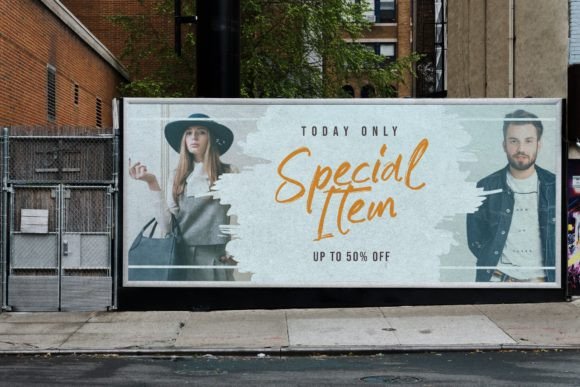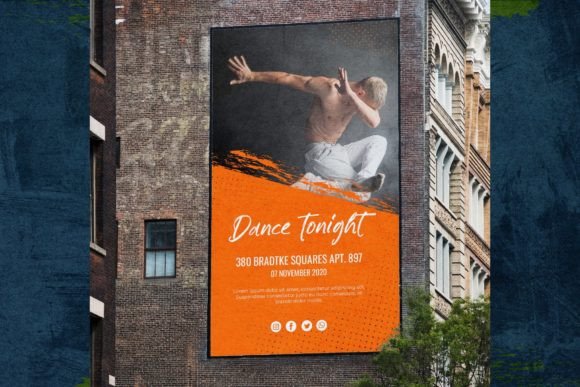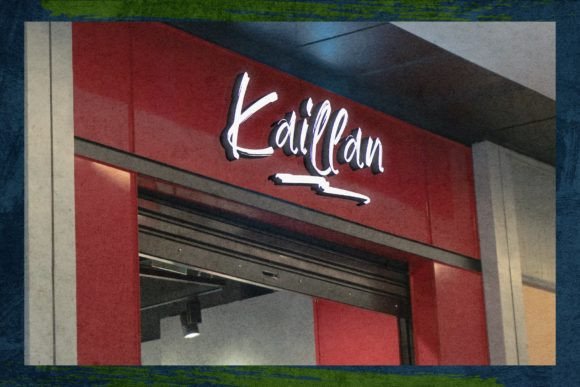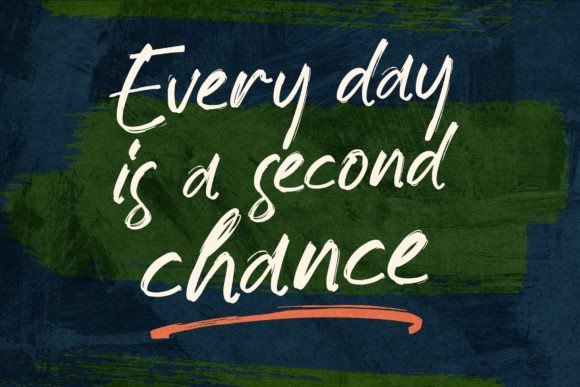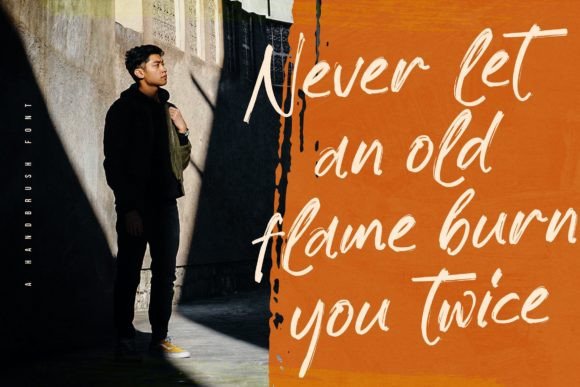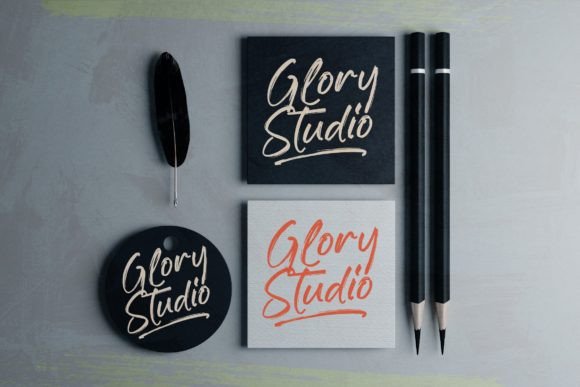
Introduction to Hickey Font
Have you ever been brainstorming ideas for a creative project, and suddenly a spark of inspiration hits you? The words flow effortlessly, and you’re left with a beautiful concept that you can’t wait to bring to life. For designers, this feeling is what makes our job so rewarding. And, with the right design resources, we can make those ideas shine even brighter. That’s where the Hickey Font comes in – a beautiful, handwritten brush script font that’s perfect for adding a personal touch to your projects.
Whether you’re creating greeting cards, invitations, or motivational quotes, the Hickey Font is an ideal choice. Its high-quality design and PUA encoding make it easy to access and use all of its amazing glyphs and ligatures. With a transparent background, this font is a versatile design resource that can be used in a variety of creative ways. And, the best part? It’s available for free download, making it an invaluable addition to any designer’s toolkit.
Key Features of Hickey Font
- High-quality design for creative projects, ideal for modern and edgy styles
- Unique characteristics include bold, distressed, and grungy styles, adding texture and depth to designs
Honest Review: Hickey Font
I recently had the chance to work with the Hickey Font, and I must say, it’s been a great addition to my design resource collection. This high-quality font is perfect for creative projects that require a unique touch.
- What works well: ✨ The font’s elegant and sophisticated design makes it suitable for various applications, from wedding invitations to luxury brand logos.
- What works well: ✨ The transparent background of the font makes it easy to use with any background image or color, giving designers more flexibility in their creative projects.
However, I did encounter some limitations while working with the Hickey Font. ⚠️ The font can be quite difficult to read in smaller sizes, which may not be ideal for designs that require a lot of text.
Overall, I’m impressed with the Hickey Font. It’s a great free download that can add a touch of sophistication to any design project. If you’re looking for a high-quality font to elevate your creative work, I’d definitely recommend giving the Hickey Font a try.
Getting the Most Out of Hickey Font
Here are some tips for getting the most out of Hickey Font: Use it in conjunction with other design elements, such as images and graphics, to create a cohesive look. Experiment with different font sizes and styles to add visual interest to your design.
Hickey Font is perfect for a variety of creative projects, including: branding and logos, social media graphics, and marketing materials. Its high-quality design and transparent background make it a versatile design resource.
Yes, the Hickey Font includes a transparent background, making it ideal for use in web design and other applications where a transparent font is necessary. This feature allows designers to easily overlay the font on top of images or other design elements.